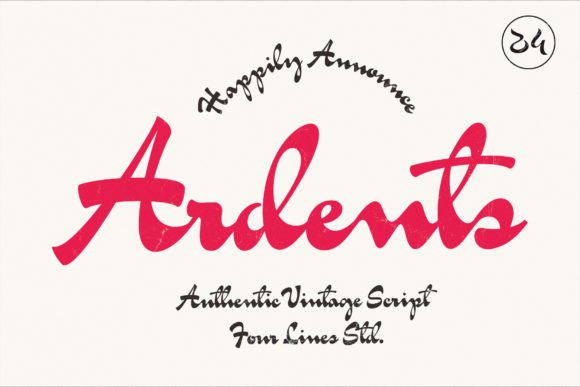
Introducing Ardents Font: A Vintage Script Typeface for Timeless Designs
The Ardents font is a beautiful script typeface that embodies the essence of vintage design. With its thick, flowing lines and traditional lettering, this font is perfect for designers looking to add a touch of authenticity to their projects. In this article, we’ll explore the features and uses of the Ardents font, and provide insights on how to leverage its unique style to elevate your designs.
What is Ardents Font?
Ardents is a script font that boasts a distinctive vintage flair. Its thick, flowing lines and classic lettering make it an ideal choice for designers seeking to create timeless and elegant designs. The font’s traditional and authentic feel makes it suitable for a wide range of design projects, from posters and logos to quotes, headings, and social media content.
Key Features of Ardents Font
The Ardents font comes with several key features that make it a versatile and desirable typeface:
- Thick and flowing lines: The font’s thick lines give it a bold and elegant appearance, while its flowing lines add a touch of sophistication and refinement.
- Vintage nuances: The Ardents font is characterized by subtle vintage nuances that evoke a sense of nostalgia and classic design.
- Traditional and authentic lettering: The font’s traditional and authentic lettering makes it perfect for designers seeking to create designs that exude a sense of heritage and timelessness.
Uses of Ardents Font
The Ardents font is a versatile typeface that can be used for a wide range of design projects, including:
- Posters: The font’s bold and elegant appearance makes it perfect for creating eye-catching posters that grab attention.
- Logos: The Ardents font’s traditional and authentic feel makes it an excellent choice for logos that require a sense of heritage and timelessness.
- Quotes: The font’s flowing lines and classic lettering make it ideal for creating beautiful and inspiring quotes.
- Headings: The Ardents font’s thick and flowing lines make it perfect for creating bold and elegant headings that add a touch of sophistication to any design.
- Printed materials: The font’s traditional and authentic feel makes it suitable for creating printed materials such as brochures, flyers, and business cards.
- Merchandise: The Ardents font’s bold and elegant appearance makes it perfect for creating merchandise such as t-shirts, mugs, and tote bags.
- Social media content: The font’s flowing lines and classic lettering make it ideal for creating engaging and inspiring social media content.
Exploring the Font Preview
To get a better sense of the Ardents font’s unique style and features, it’s essential to explore the font preview. The font preview provides a comprehensive look at the font’s characters, including its uppercase and lowercase letters, numbers, and punctuation marks.
By examining the font preview, designers can gain insights into the font’s:
- Letterform: The font preview showcases the Ardents font’s distinctive letterforms, including its thick and flowing lines, and classic lettering.
- Character set: The font preview provides a comprehensive look at the font’s character set, including its uppercase and lowercase letters, numbers, and punctuation marks.
- Style variations: The font preview may also showcase the font’s style variations, including its bold, italic, and oblique versions.
Tips for Using Ardents Font
To get the most out of the Ardents font, here are some tips to keep in mind:
- Use it sparingly: The Ardents font’s bold and elegant appearance makes it perfect for headlines and titles. Use it sparingly to create visual interest and emphasis.
- Pair it with complementary fonts: The Ardents font pairs well with complementary fonts that have a similar vintage or classic feel. Experiment with different font combinations to find the perfect match.
- Experiment with colors: The Ardents font’s traditional and authentic feel makes it suitable for a wide range of colors. Experiment with different colors to find the perfect match for your design.
The Ardents font is a beautiful script typeface that embodies the essence of vintage design. With its thick, flowing lines and traditional lettering, this font is perfect for designers looking to add a touch of authenticity to their projects. By exploring the font preview and following the tips outlined in this article, designers can leverage the Ardents font’s unique style to create timeless and elegant designs that captivate audiences.